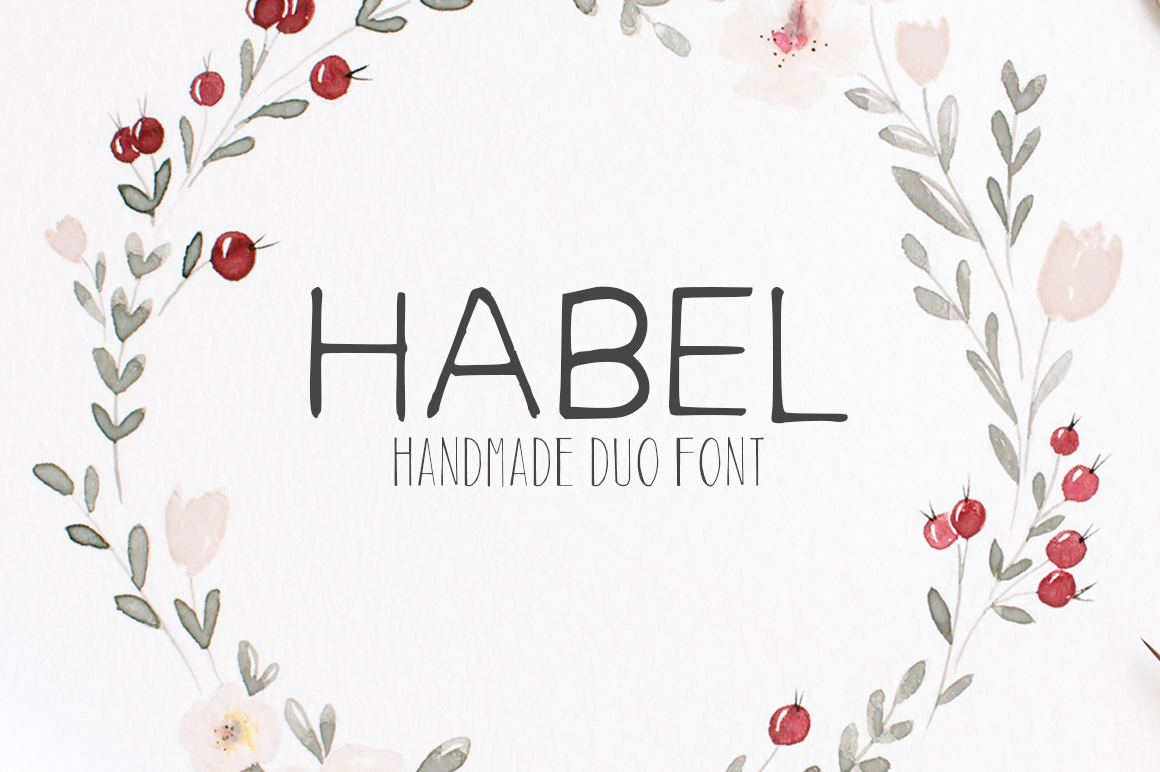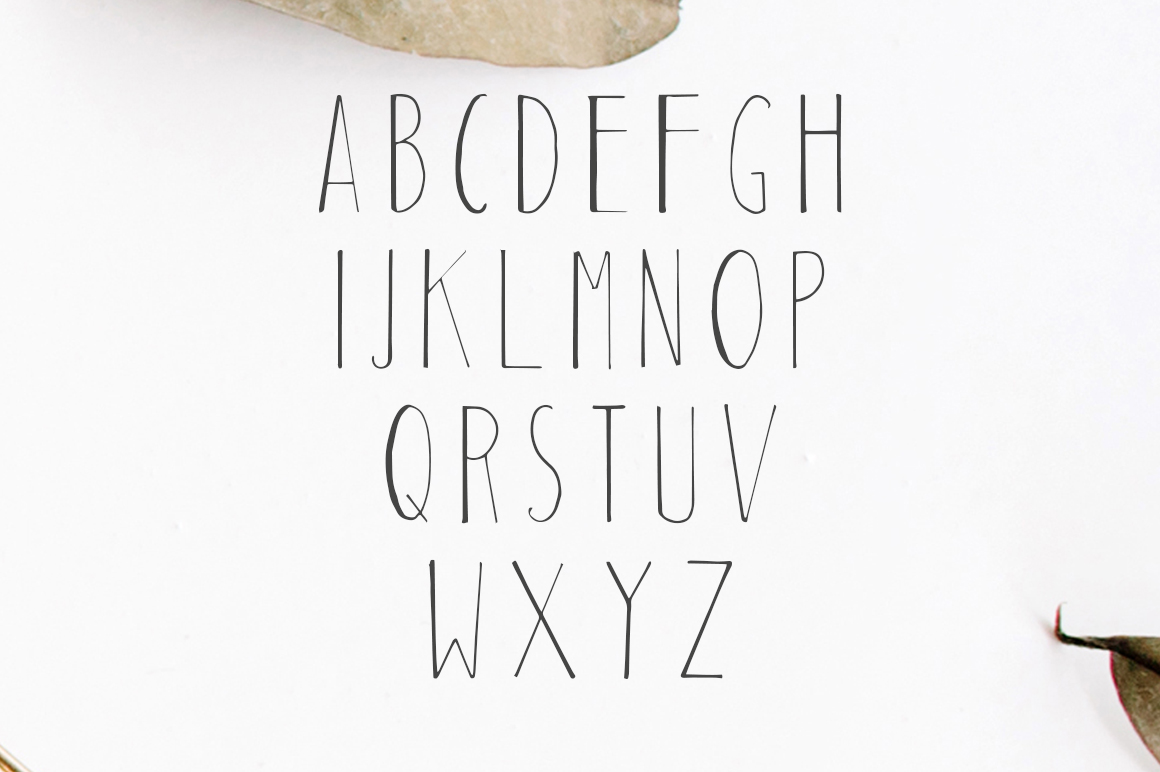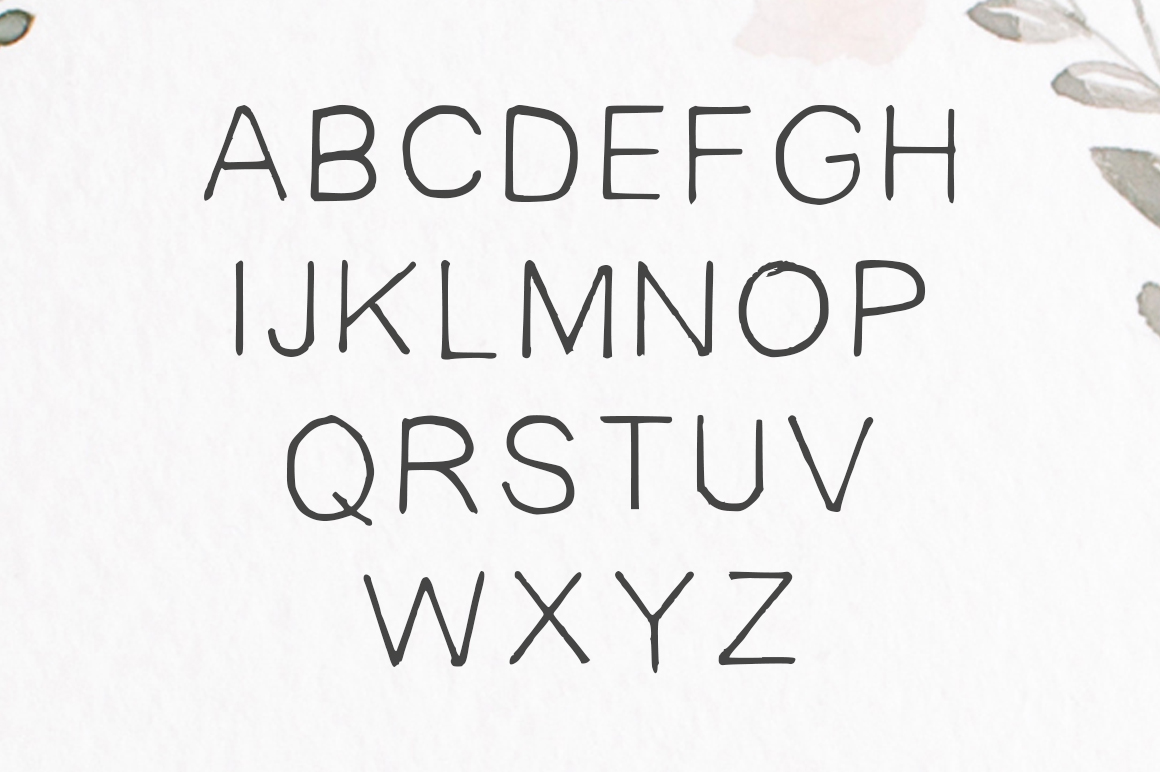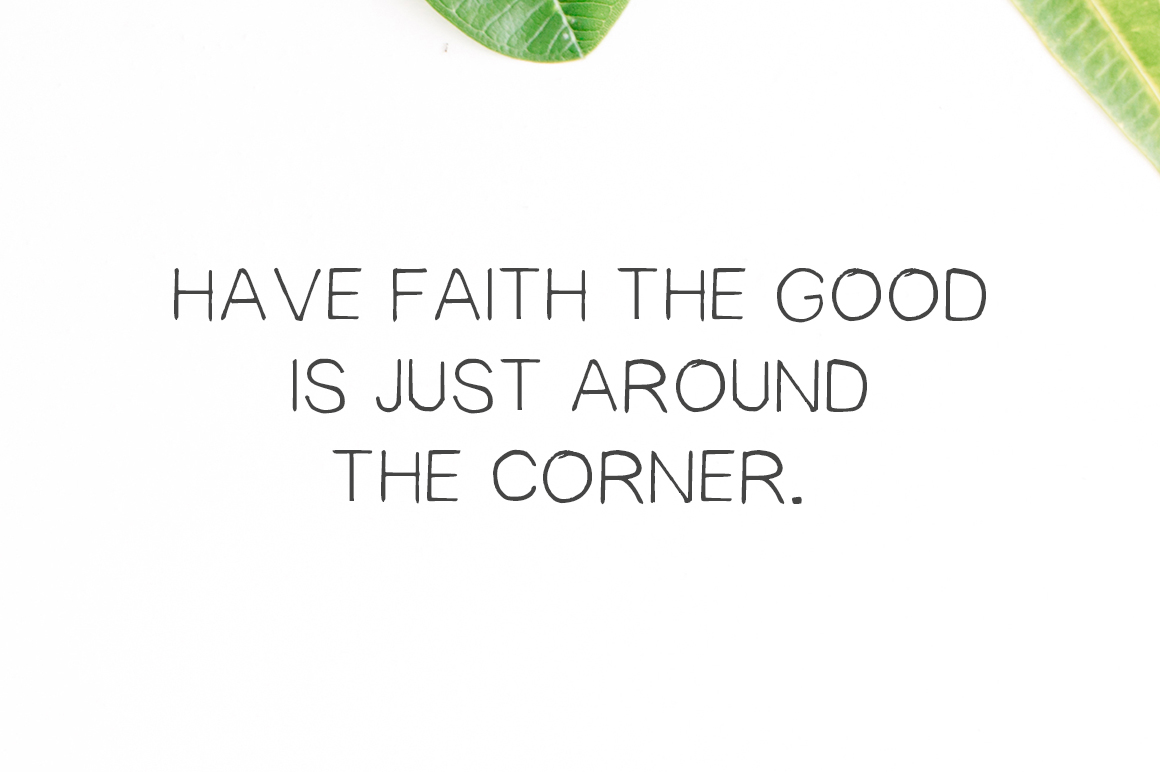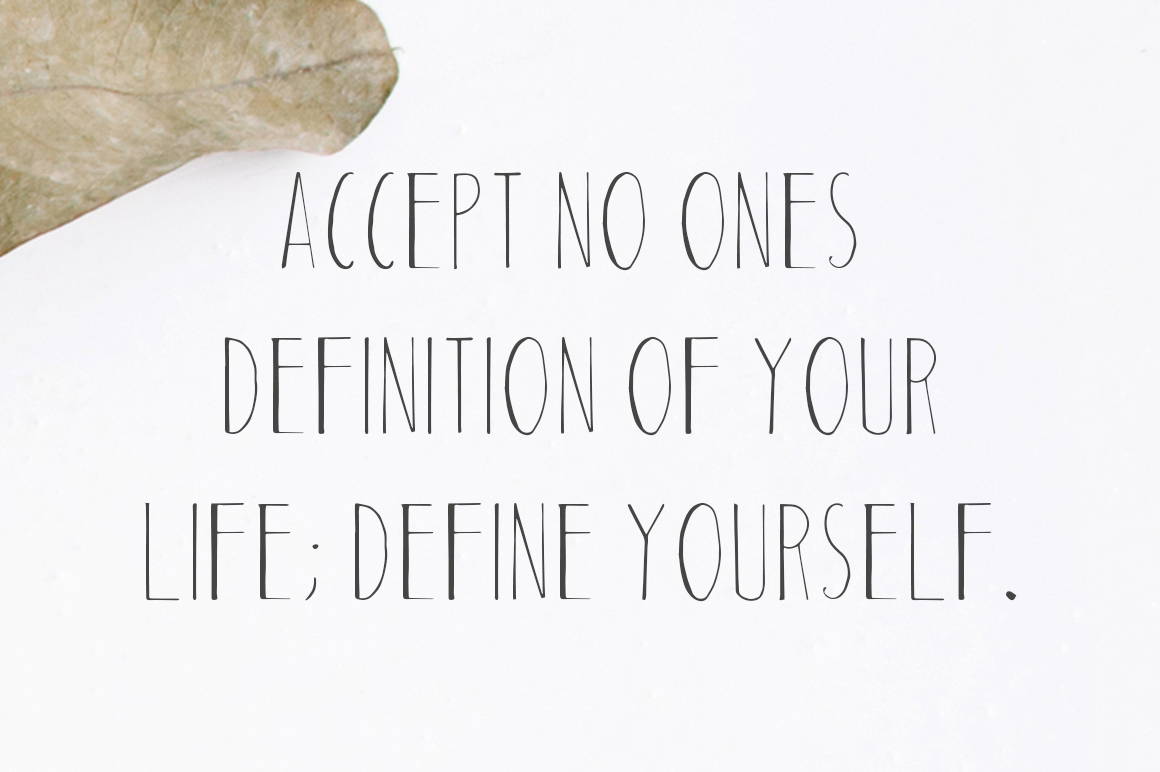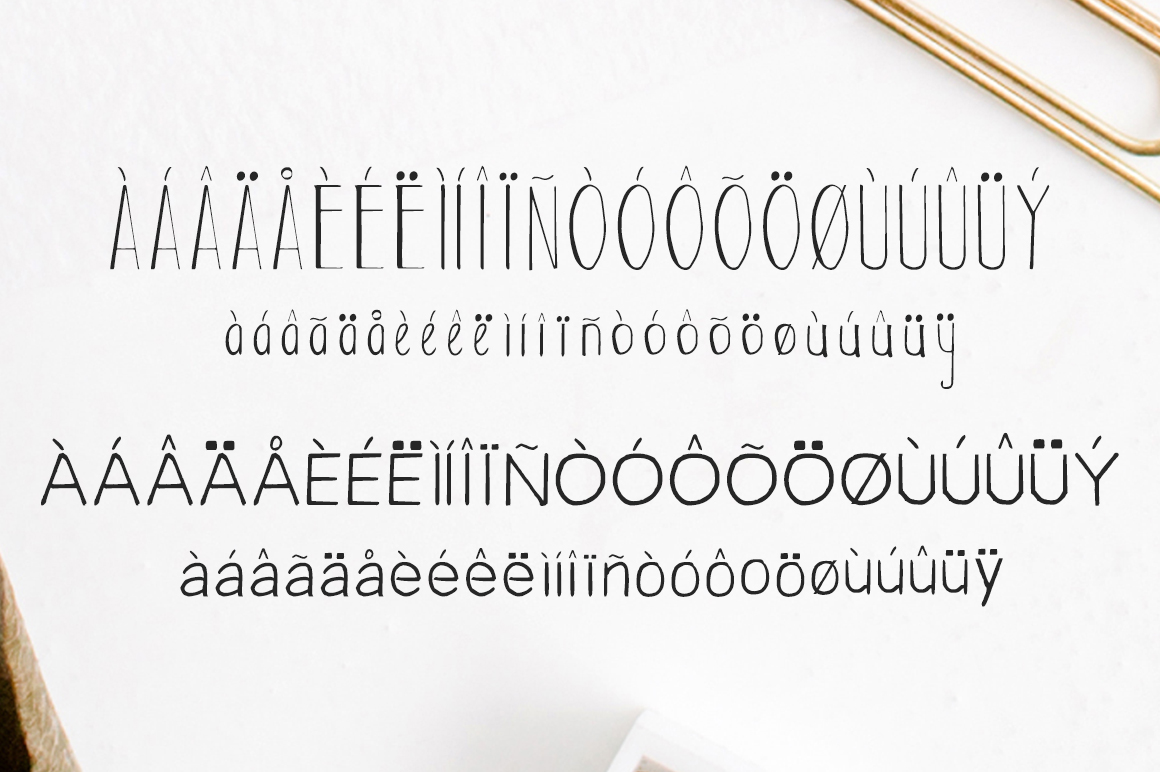
Habel Font
About Habel Font
Habel is a handmade font duo that consists out of 2 fonts:
Habel
Adouliss
Both go together perfectly, but also work well individually.